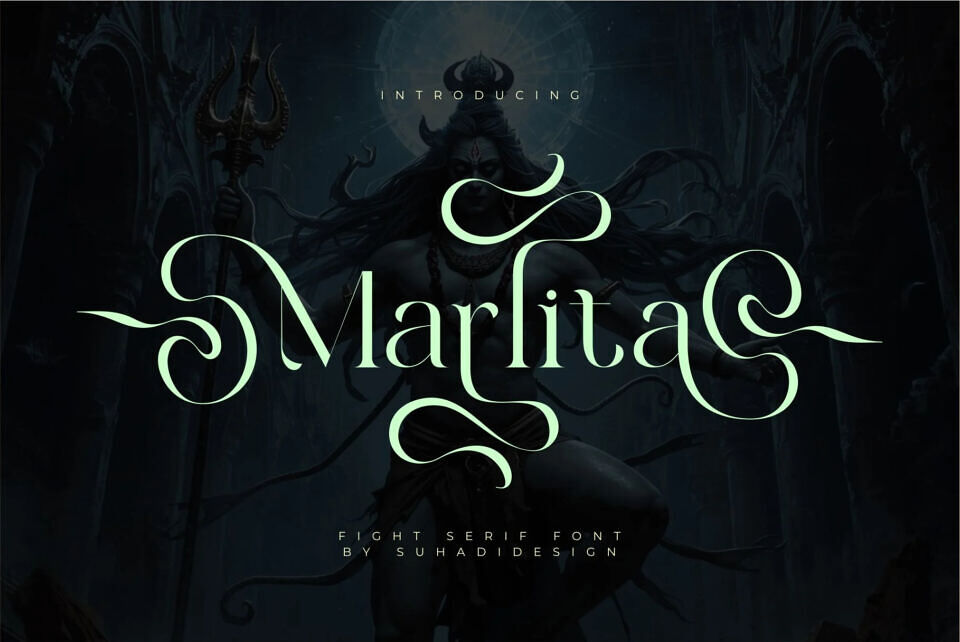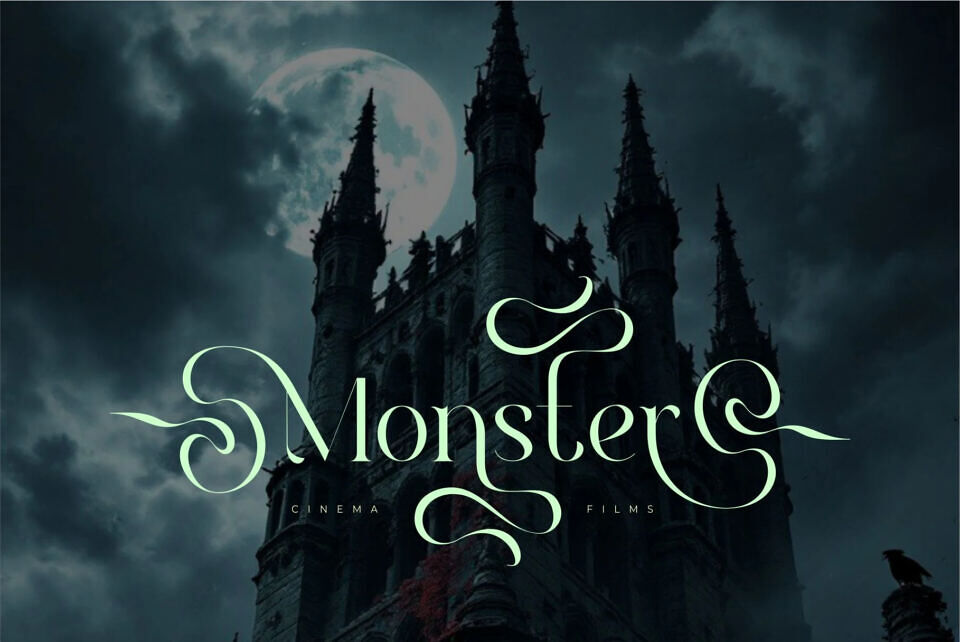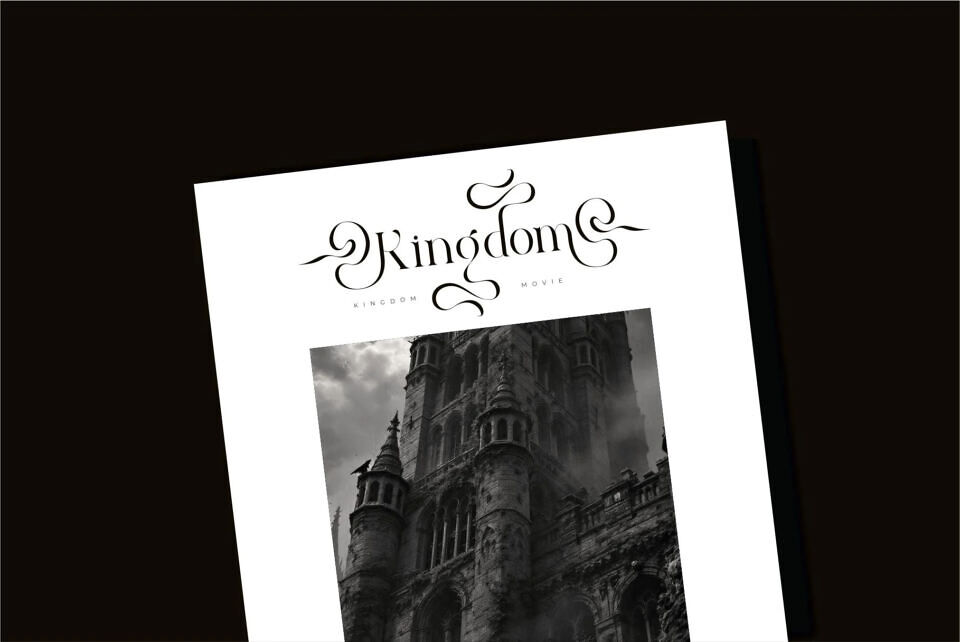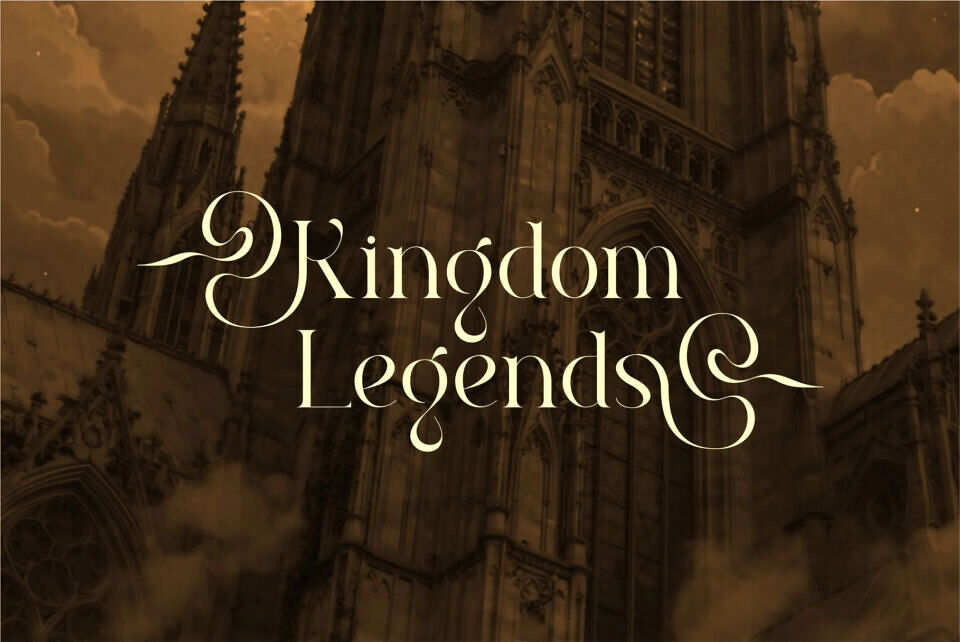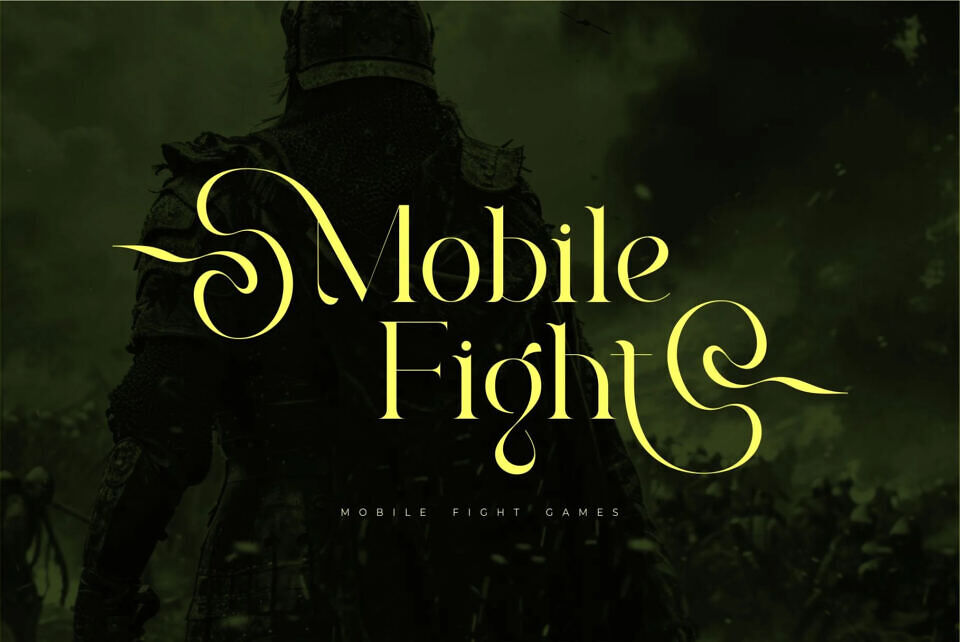
Marlita Font
Marlita is a royal-inspired serif font that combines elegance, style, and modern sophistication. Designed with a refined balance of class and creativity, it brings a regal yet contemporary feel to any project.
Perfect for movies, games, magazines, tourist attractions, boutiques, branding, books, and social media, Marlita adapts seamlessly across digital and print designs. Its versatile letterforms ensure a timeless aesthetic, making it a top choice for designers seeking luxury and distinction.